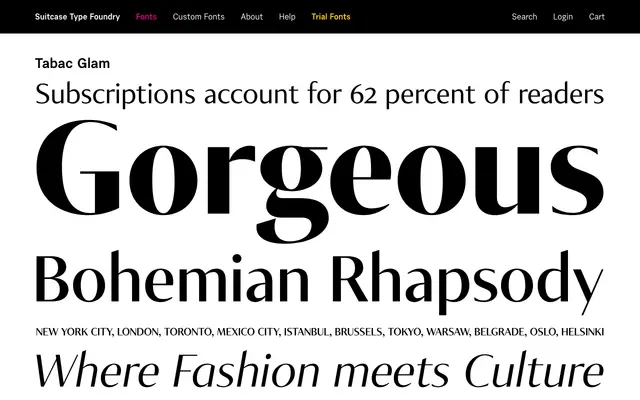
A high-contrast display serif from the Tabac superfamily, designed for headline and editorial contexts where elegance and drama are required.
Part of the extensive Tabac superfamily from Suitcase Type Foundry, Glam is the display-oriented serif branch, sitting alongside slab, sans, mono and the oversized Big Glam variants. Its name signals a high-contrast, fashionable character suited to magazine headlines and luxury brand work. The full Tabac superfamily spans well over 100 fonts, giving designers a coherent palette across radically different moods and settings.
The Glam naming and its placement within the Tabac superfamily alongside slab, sans and mono variants suggests a high-contrast, display-oriented serif cut designed for headline use rather than extended text.